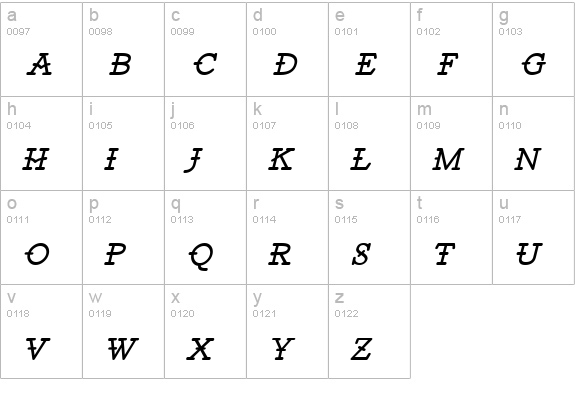
Santiago BTN Oblique is a distinctive, italic variant in the Santiago typeface family \xE2\x80\x94 well suited to design and typography projects.
Santiago BTN Oblique is a bold and stylish font that exudes a sense of confidence and modernity. Its sleek and slanted design adds a touch of elegance to any project, making it ideal for headlines, titles, and branding materials. This versatile font features clean lines, sharp edges, and a unique oblique angle that adds a subtle twist to its overall appearance. It effortlessly combines classic typography with a contemporary twist, resulting in a visually appealing font that stands out from the crowd. Whether you're designing a logo, creating a poster, or crafting a website, Santiago BTN Oblique is sure to make a statement. Its bold and eye-catching letterforms command attention and create a lasting impression. It is perfect for projects that require a strong and impactful visual presence. What sets Santiago BTN Oblique apart is not only its stunning aesthetics but also its accessibility. This font is available for free download at FontsMarket.com. Yes, that's right, it can be yours at no cost. FontsMarket.com offers a wide range of fonts, including Santiago BTN Oblique, all freely available for designers and creatives to enhance their projects without breaking the bank. So, why wait? Download Santiago BTN Oblique today and give your designs the touch of sophistication they deserve. With its striking appearance and its availability at FontsMarket.com, you have the perfect combination of style and accessibility at your fingertips.